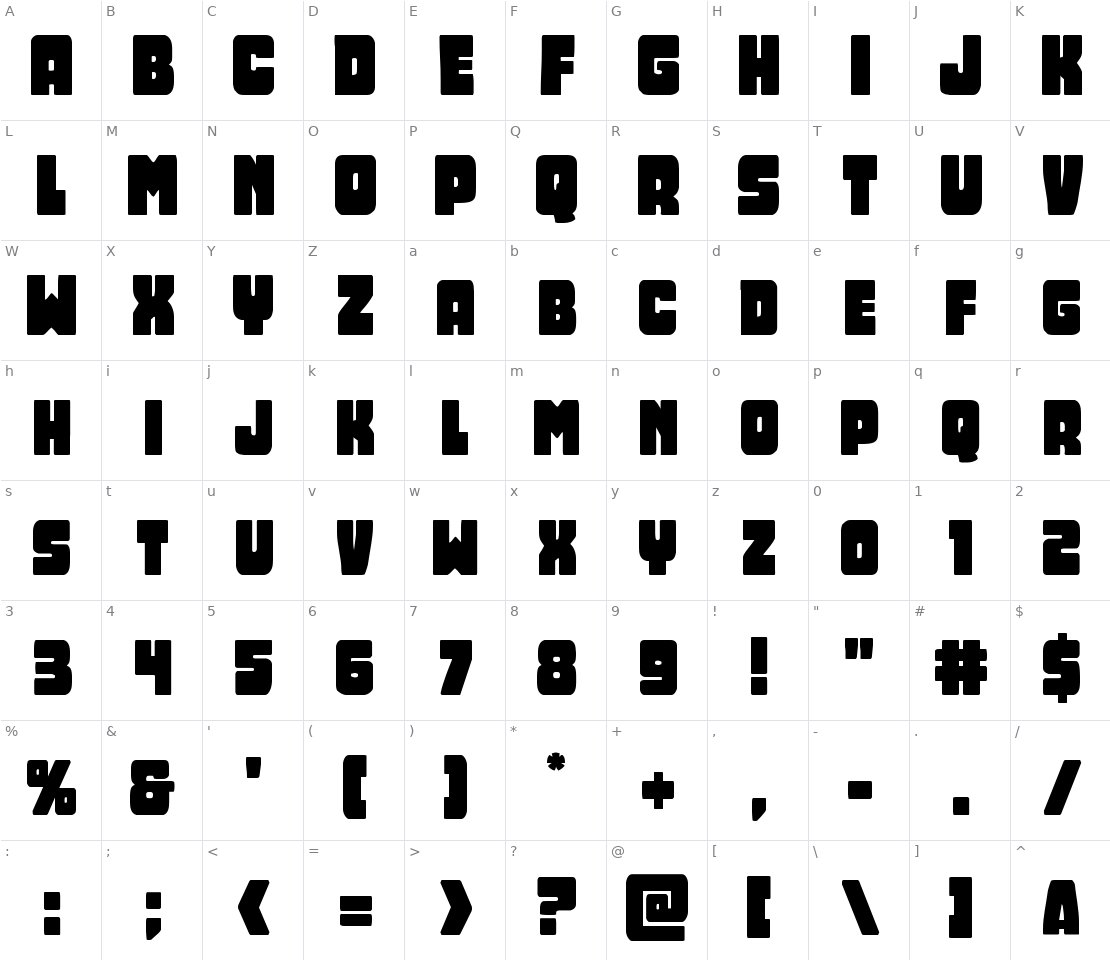
Opus Mundi
Opus Mundi is a heavy, condensed display face from Iconian Fonts with blocky, uppercase letterforms packed tightly together. The geometric structure and sheer weight give it a monumental quality, like text designed to be read from across a room. Built for posters, headlines, and title cards where density and impact matter more than nuance.